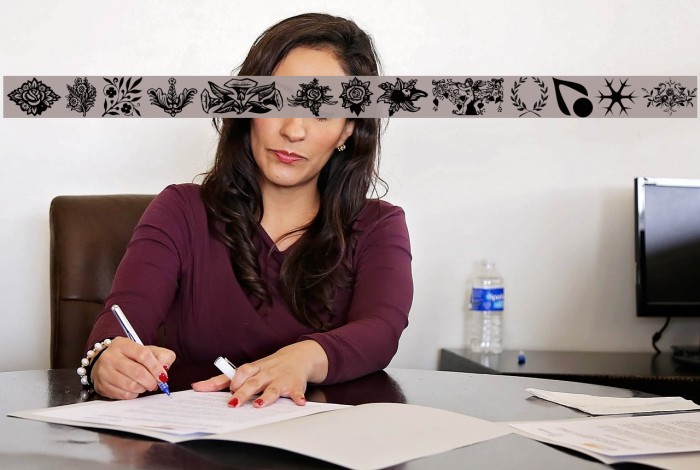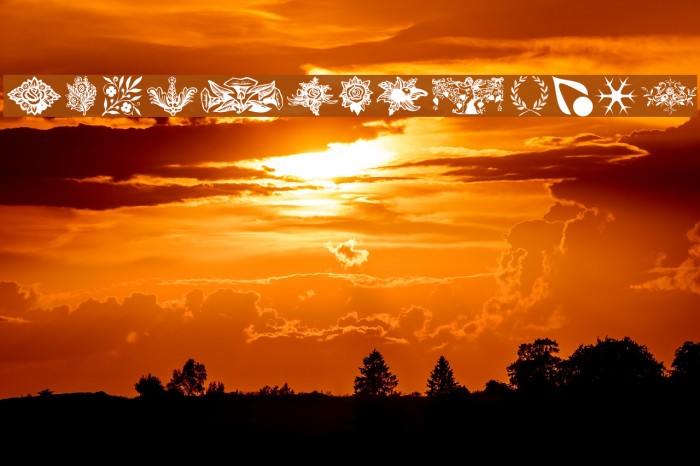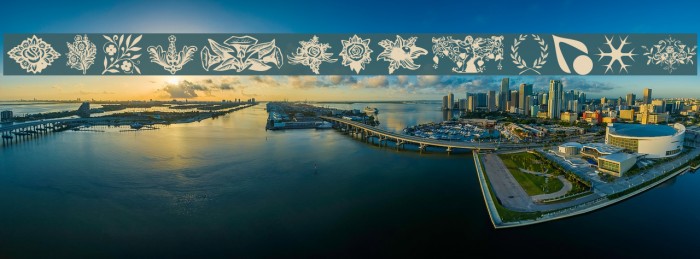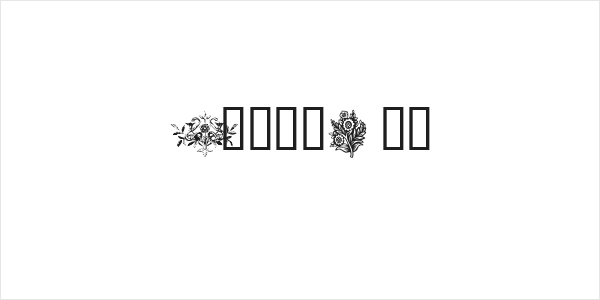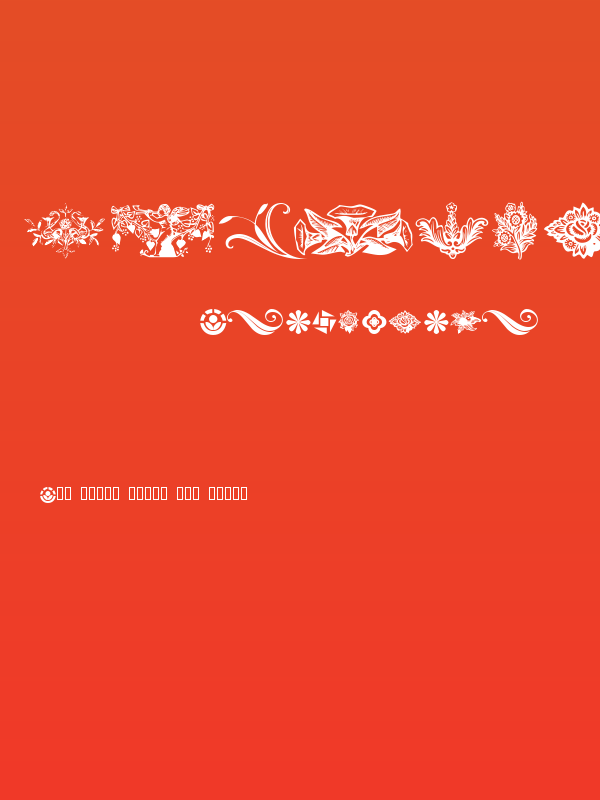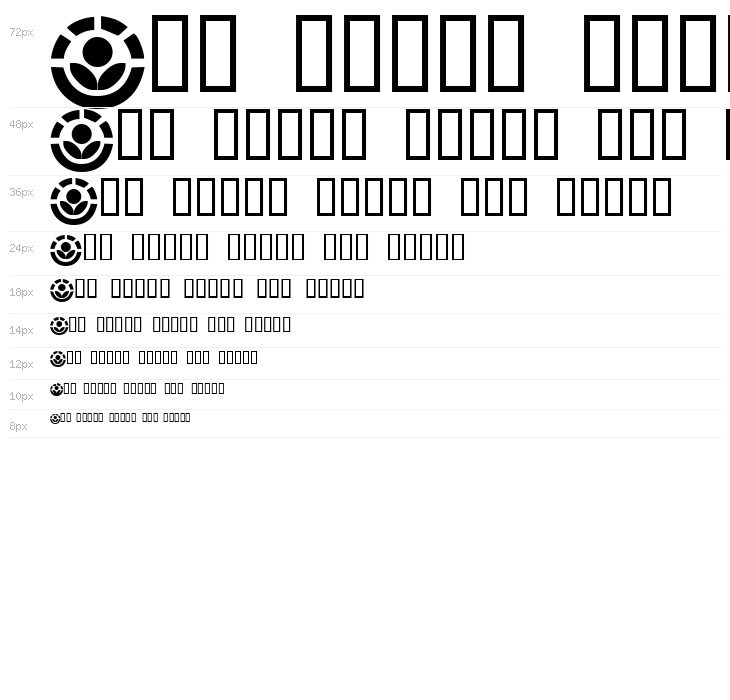
MixedBag Font
MixedBag Description
A decorative dingbat and symbol collection featuring a variety of ornate floral motifs, geometric shapes, and abstract icons. The style is highly ornamental and diverse, with each glyph presenting a unique design rather than a standard alphabet or numeral set.
| Overall Style | Decorative, Ornamental, Eclectic |
| Use Case | Decorative elements, Borders, Accents, Icons |
| Proposed Projects | Invitations, certificates, decorative borders, scrapbooking, logo accents, and artistic design projects. |